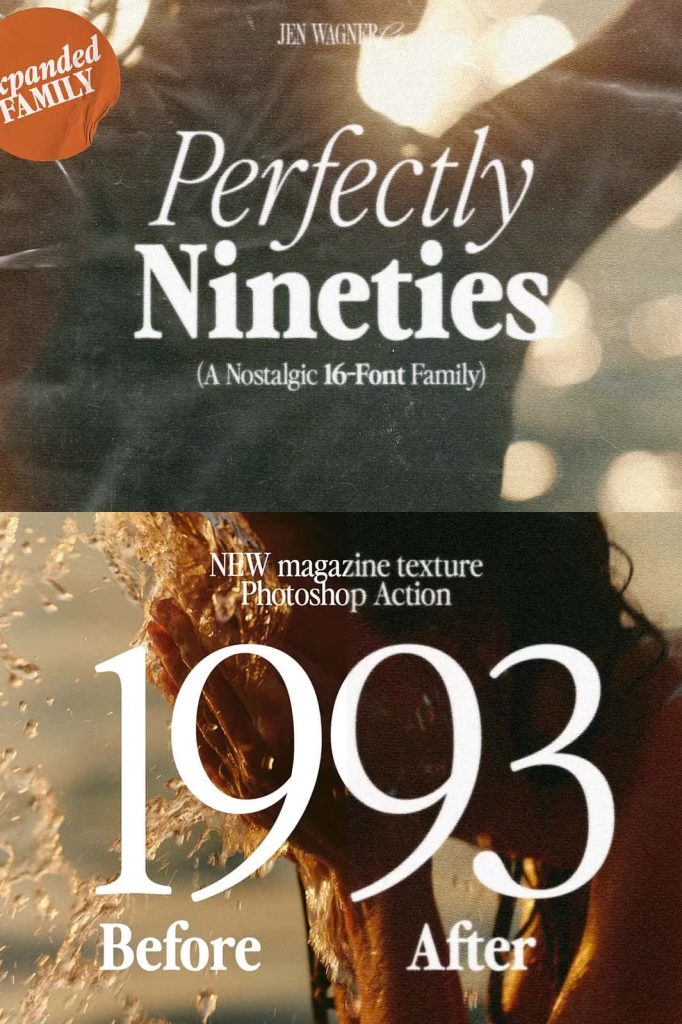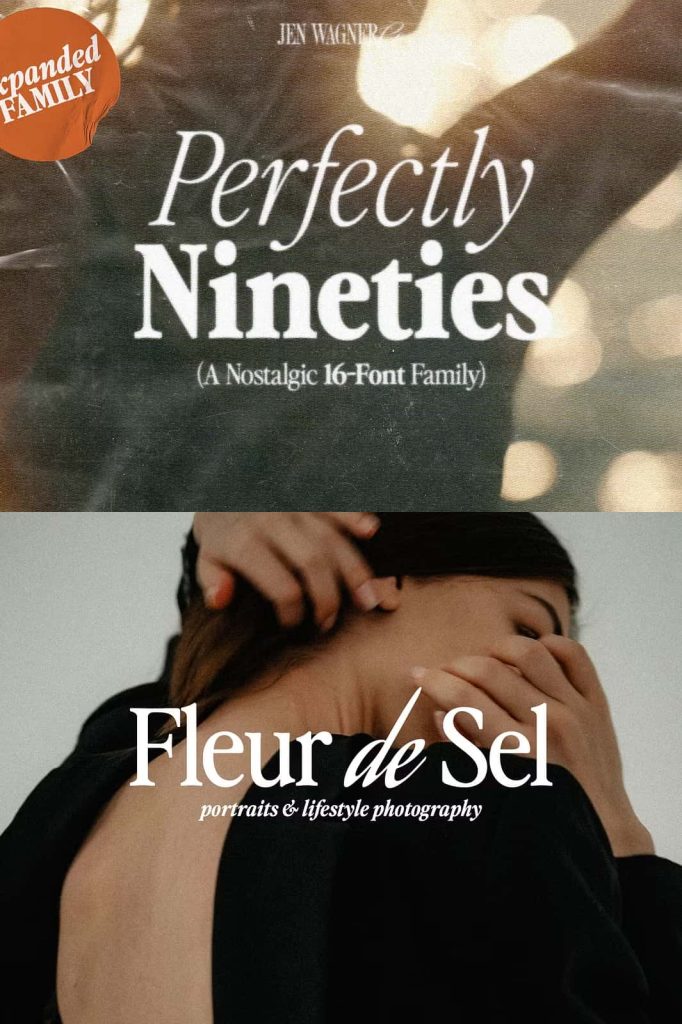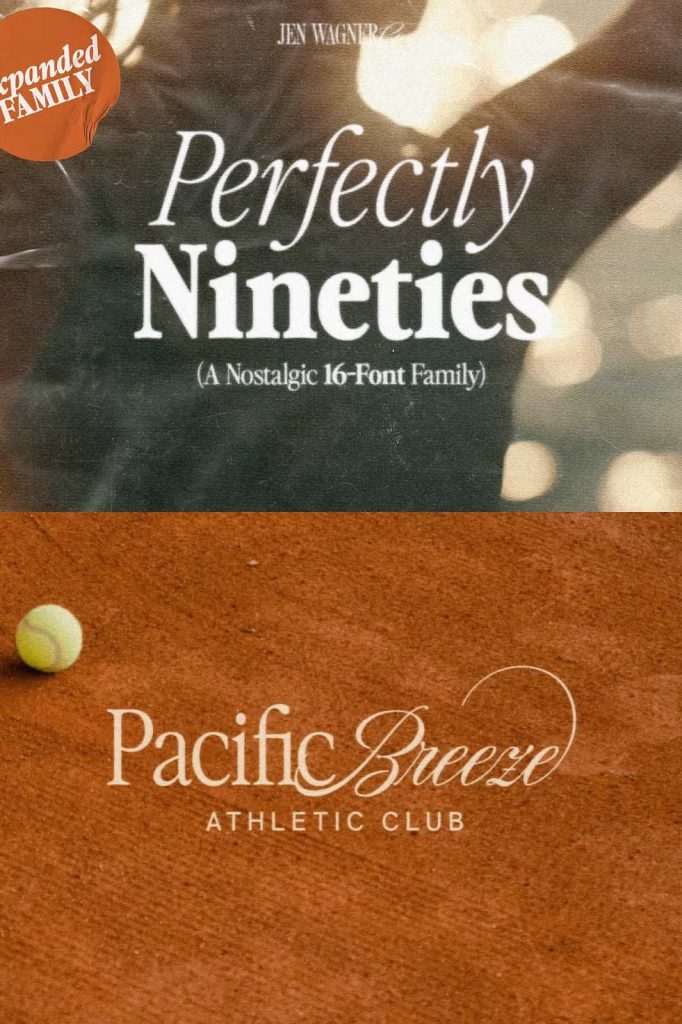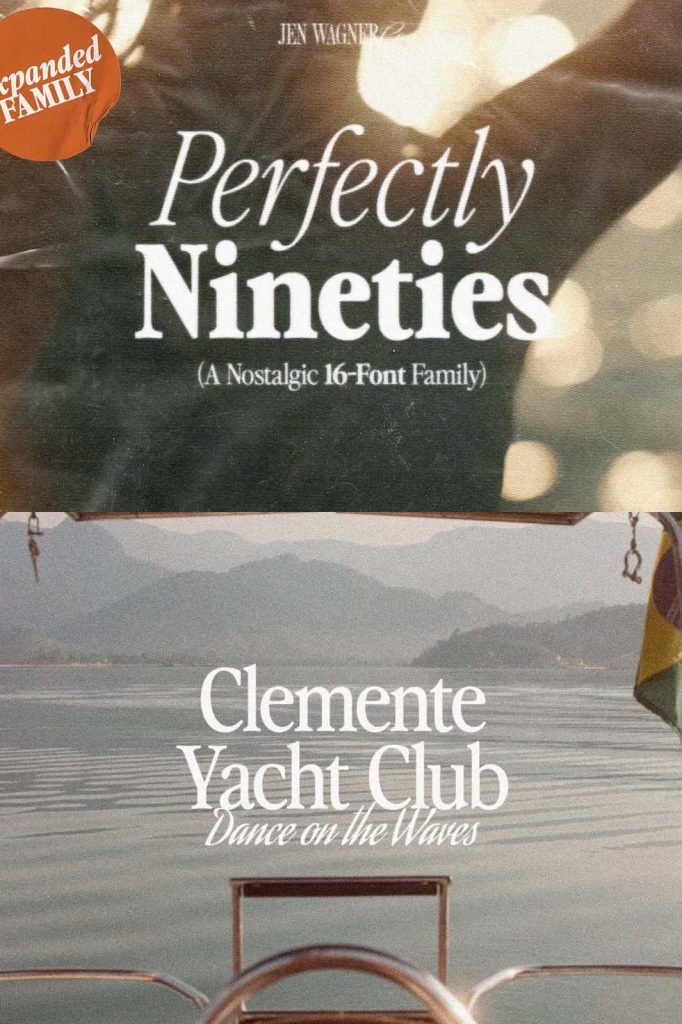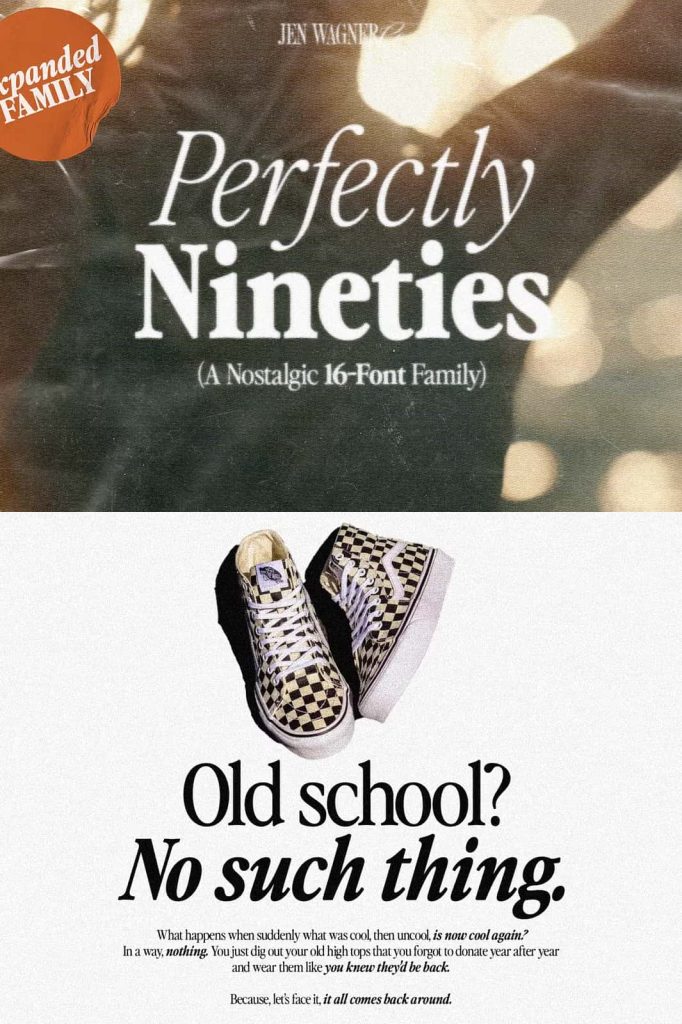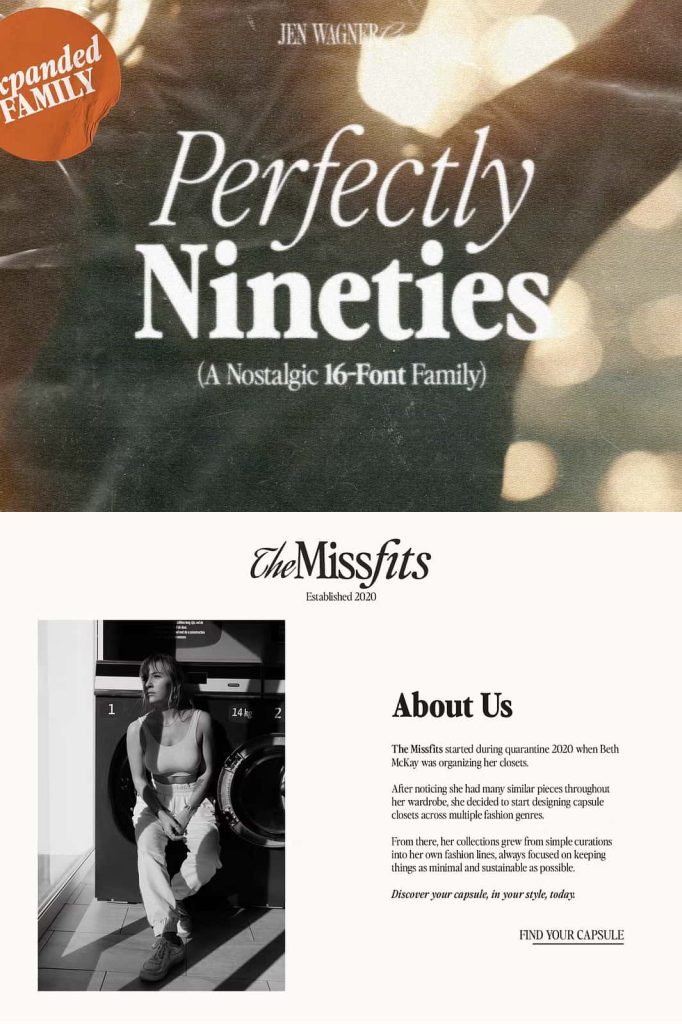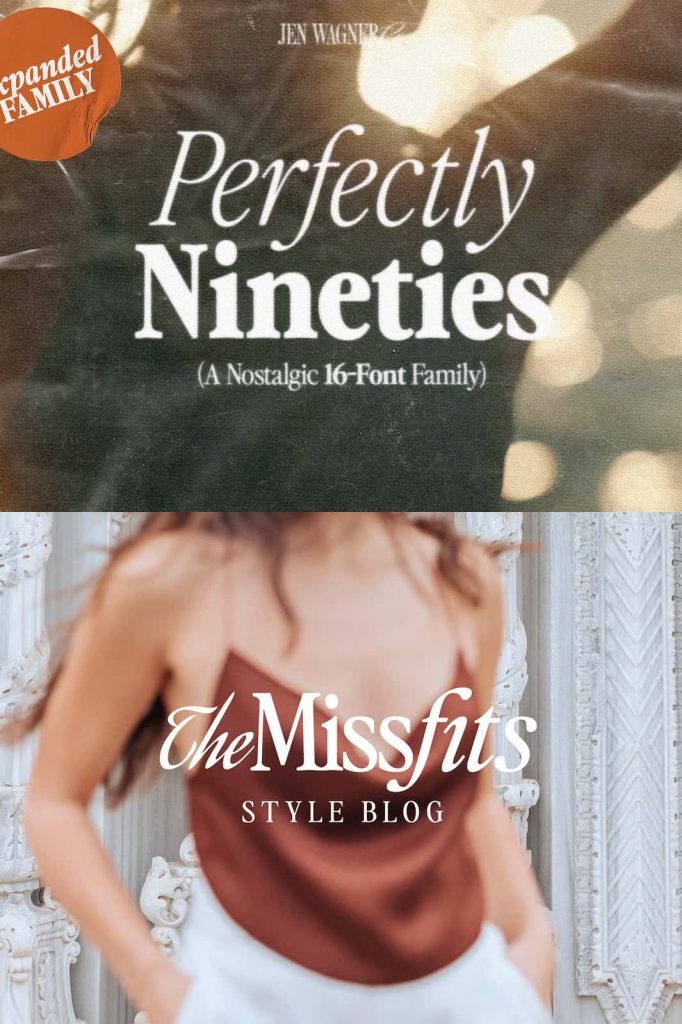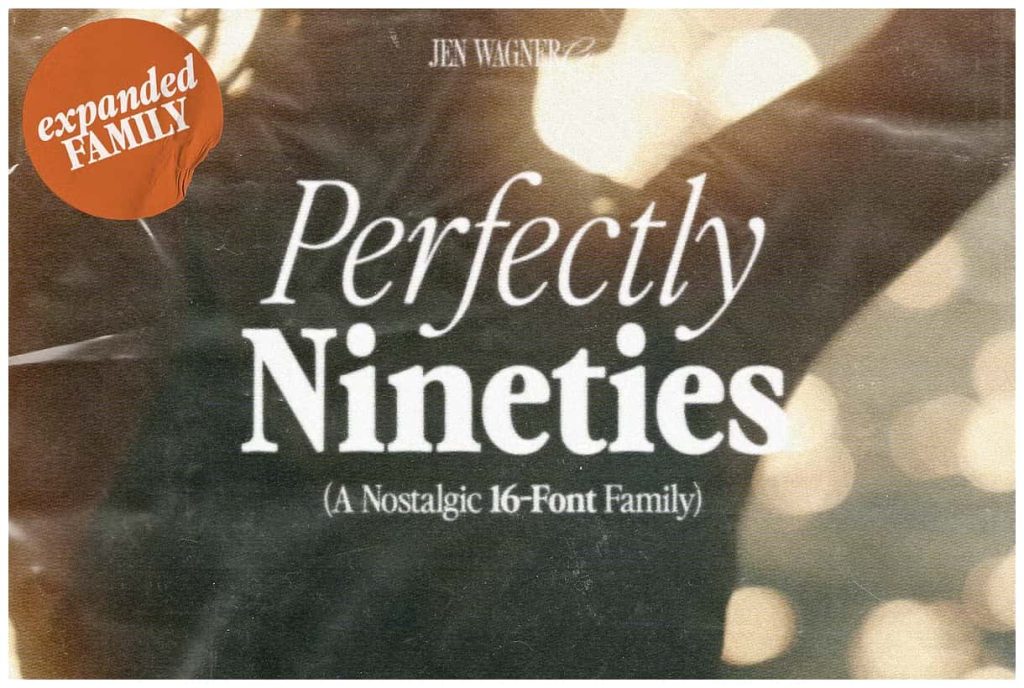
Perfectly Nineties 16-Font Family
Perfectly Nineties Family: A Complete Retro Serif Font Collection
Perfectly Nineties Family expands the original typeface into a powerful and versatile font collection that gives designers full creative control. This family includes 16 carefully crafted fonts, featuring both regular and italic styles, and a full weight range from Thin to Black. It preserves the nostalgic charm of classic 80s and 90s serif typography while providing the flexibility required for modern design projects.
Designers no longer need to rely on a single style to achieve their vision. With this extended family, you can build consistent, dynamic, and professional typography systems that adapt seamlessly across different platforms and formats.
A Complete Typeface System for Modern Design
Perfectly Nineties Family offers more than just visual appeal—it delivers a structured system that supports a wide range of design needs. Each weight and style has been designed to work harmoniously with the others, allowing designers to create strong visual hierarchies and cohesive layouts.
From subtle and refined text to bold and impactful headlines, this font family gives you the tools to control tone, emphasis, and readability with precision. Instead of switching between unrelated fonts, you can maintain consistency while still achieving variety.
16 Fonts for Maximum Flexibility
This family includes a comprehensive selection of styles that cover every design scenario. With both regular and italic versions available across multiple weights, designers can explore endless creative possibilities.
Wide Range of Weights
The font spans from Thin to Black, giving you full control over visual intensity. Lighter weights create an elegant and minimal look, while heavier weights deliver strong, confident statements. This range allows designers to adapt typography to different moods and purposes.
Italic Styles for Expression and Emphasis
The included italic versions add movement and contrast to your designs. Use them to highlight key information, create visual rhythm, or introduce a more dynamic feel. These styles maintain the same nostalgic character while enhancing versatility.
Consistent Design Across All Variations
Each font within the family shares the same core design principles. This consistency ensures that every combination feels intentional and cohesive, whether you are working on branding, editorial layouts, or digital interfaces.
Maintaining the Nostalgic 90s Aesthetic
Perfectly Nineties Family stays true to its roots by preserving the tight spacing, structured forms, and timeless appeal of retro serif typography. It captures the essence of 80s and 90s design while refining it for contemporary use.
This nostalgic quality allows designers to evoke familiarity and emotion while still delivering clean and modern results. It works especially well for projects that aim to connect with audiences through retro-inspired visuals.
Ideal for Professional and Creative Projects
Perfectly Nineties Family adapts effortlessly to a wide variety of applications. Its versatility makes it suitable for both large-scale branding projects and detailed editorial work.
• Brand identity systems and logo design
• Editorial layouts and magazine typography
• Packaging with vintage or premium aesthetics
• Web design and digital interfaces
• Advertising campaigns and marketing materials
By combining different weights and styles, designers can create depth, contrast, and hierarchy without losing visual consistency.
Designed for Efficiency and Creativity
Perfectly Nineties Family simplifies the design process by offering a complete toolkit in one package. Instead of searching for complementary fonts, designers can rely on this family to handle every typographic need.
This efficiency allows you to focus more on creativity and less on technical limitations. Whether you are building a brand from scratch or refining an existing design, this font family supports your workflow with clarity and flexibility.
Why Choose Perfectly Nineties Family?
Designers choose Perfectly Nineties Family because it combines nostalgia, versatility, and professional quality. It provides a complete typographic solution that adapts to both modern and retro design trends.
• 16-font collection with full weight range
• Regular and italic styles for added flexibility
• Consistent design across all variations
• Strong nostalgic influence with modern refinement
• Suitable for both print and digital applications
This combination ensures that your designs remain cohesive, impactful, and visually engaging across all platforms.
Conclusion
Perfectly Nineties Family transforms a nostalgic serif typeface into a complete design system. With its 16 fonts, wide range of weights, and elegant italic styles, it empowers designers to create sophisticated and versatile typography. Whether you aim to build a bold brand identity or craft detailed editorial layouts, this font family delivers the tools you need to achieve consistent and memorable results.